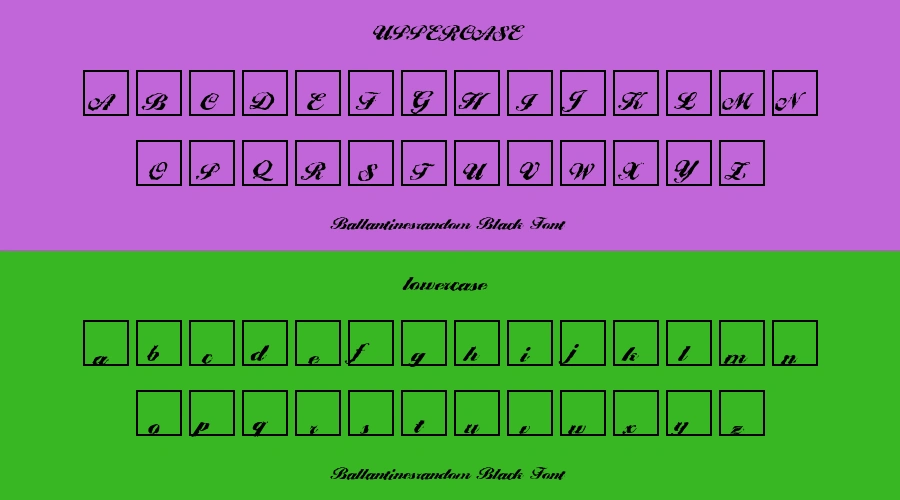
About Ballantinesrandom Black Font
Ballantinesrandom Black Font stands out for its distinctive combination of swash extensions and professionalism. Ideal for advertising headers, it provides the personality and professional authority that professional projects demand. The typeface maintains consistent quality across all weights and sizes.
Key features include refined tapered strokes and practical case-sensitive forms, enhancing typographic expression. In brand logos applications, Ballantinesrandom Black Font demonstrates exceptional reproduction fidelity. The joint detail and research value contribute to its distinctive character and professional appeal.